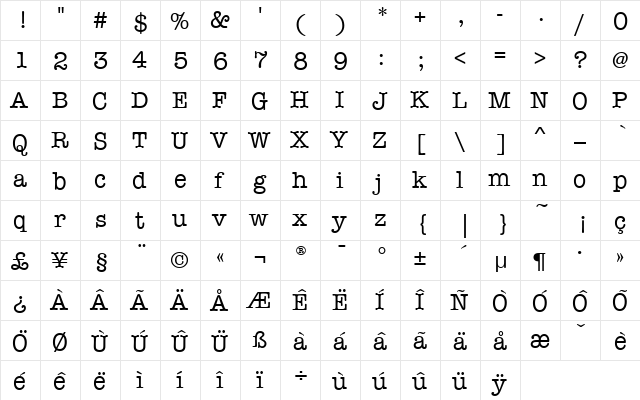
Ayar Typewriter Regular
Design Context for Ayar Typewriter Typeface
Ayar Typewriter brings the precise, column-aligned rhythm of monospaced typography to designs that value technical clarity and systematic order.
Well-suited to data-driven dashboards, coding tutorials, and any design that wants to reference the world of programming.
Pro Tip: Use Ayar Typewriter with slightly increased line-height for extended reading — fixed-width spacing can feel dense in longer passages without extra breathing room.